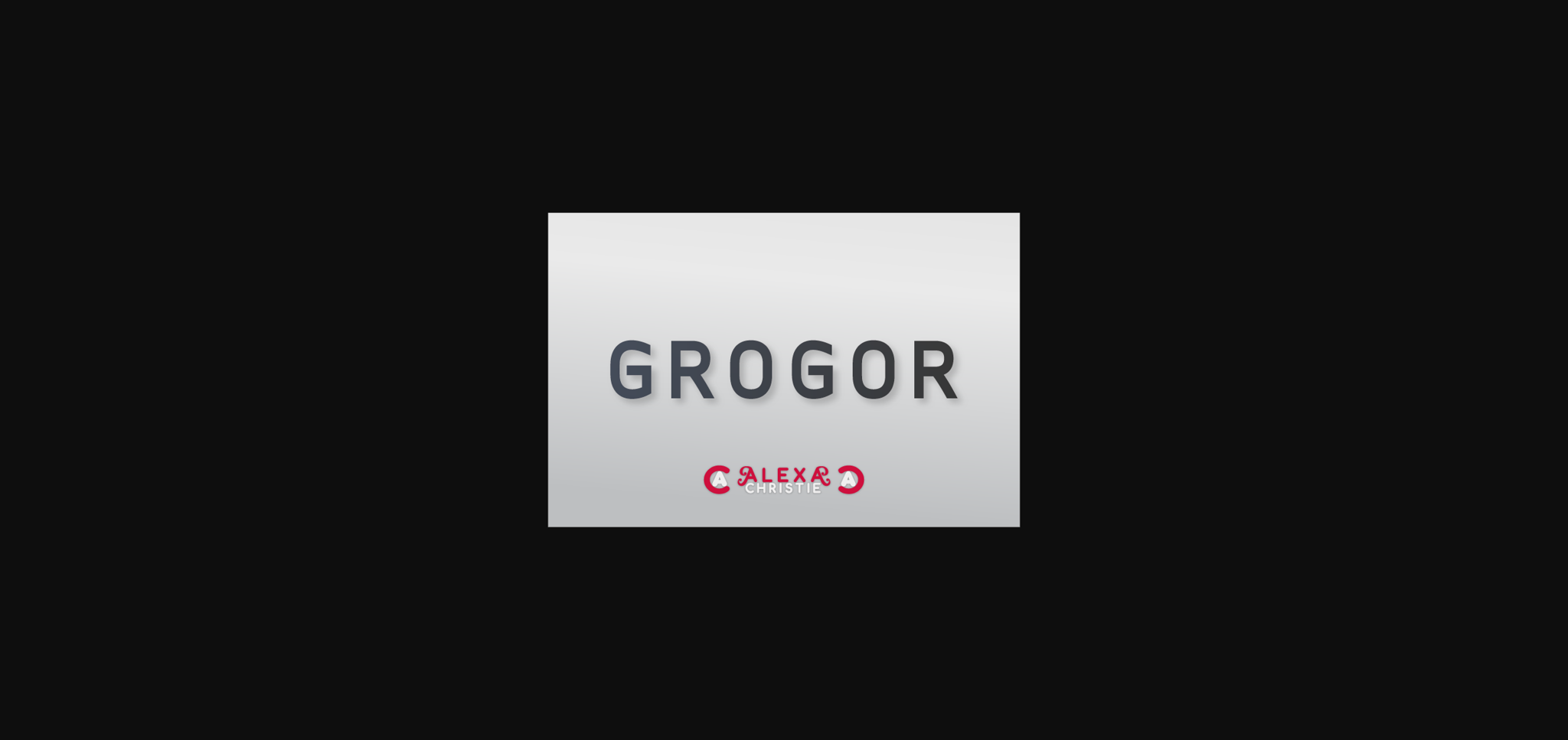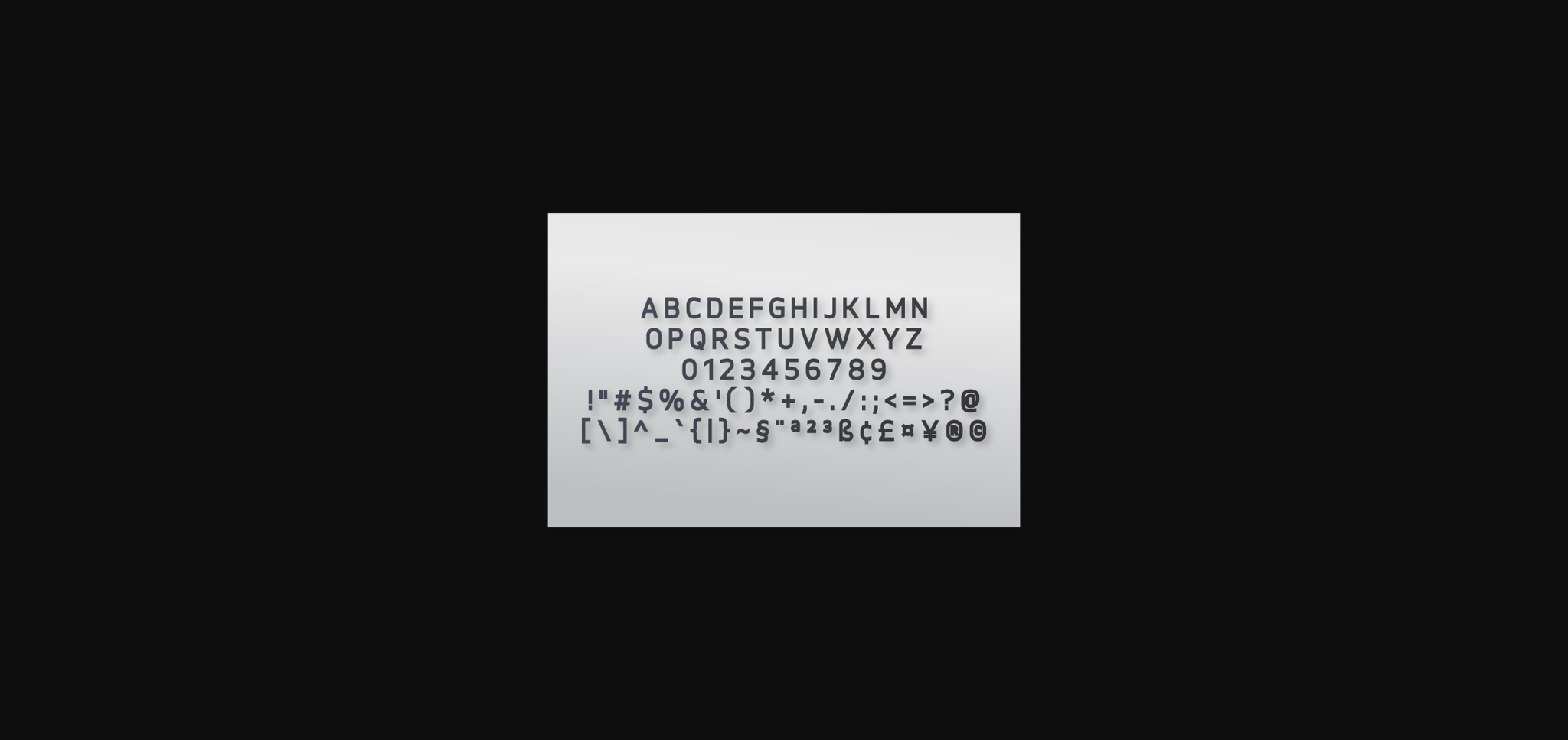
HomeSans Serif FontsGrogor Font Sans Serif Fonts Grogor Font FacebookTwitterPinterestWhatsApp 1 of 4 ... Grogor Font Poster 2... Grogor Font Poster 3... Grogor Font Poster 4... About Grogor Font Grogor is a fancy, contemporary sans serif font. It will complement any design need perfectly with its perfectly balanced mix of the smooth and sharp! DOWNLOAD NOW 117 0 People also explored Xandria Font Baceno Font Flower Grave Font Shakilla Font Perfectly Imperfect Family Font Vacation Together Font Cheval Bloomin Monogram Font Silence King Font Cheese Latte Font Darkloose Font Rosellya Font TagsGrogorGrogor Font Previous articleStolypow FontNext articleDugguen Font LEAVE A REPLY Cancel reply Comment: Please enter your comment! Name:* Please enter your name here Email:* You have entered an incorrect email address! Please enter your email address here Website: Save my name, email, and website in this browser for the next time I comment. Unlock Endless Creativity with the FREE September Clipart Huge Bundle (Valued at $700!) Personal Use Free Castina Personal Use Free Read more Abuget Free Script Personal Use Free Read more Doriss Girls Family Personal Use Free Read more Marthissa Personal Use Free Read more BLOG To increase your work productivity, choose the most readable fonts. In today's fast-paced work environment, where digital communication and information consumption are integral to our daily routines, the choice of fonts can significantly impact... The 10 Best Handwriting Fonts to Add Personality to Your Designs Top 7 Google Fonts Alternatives for Faster and Privacy-Friendly Web Design (2025) Transform Your Website: Elevate Your Typography with 7 Best Web Font Generators